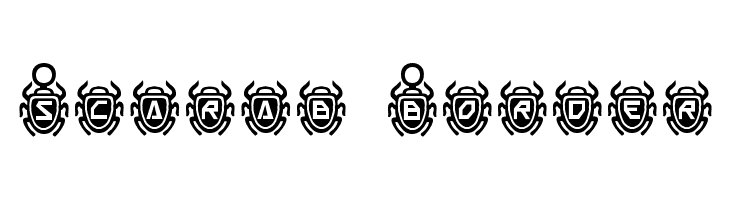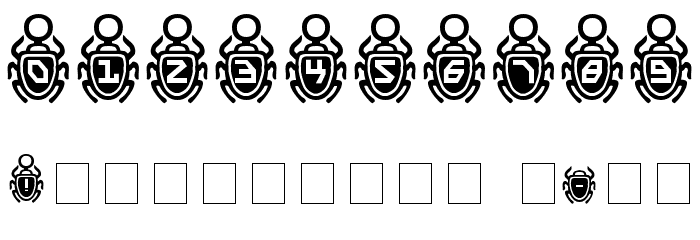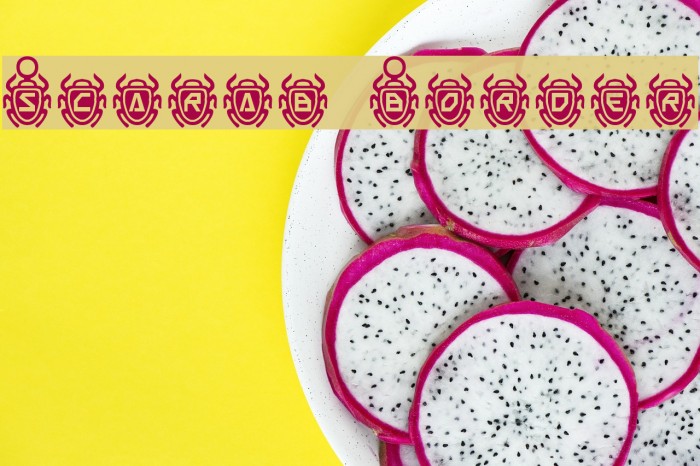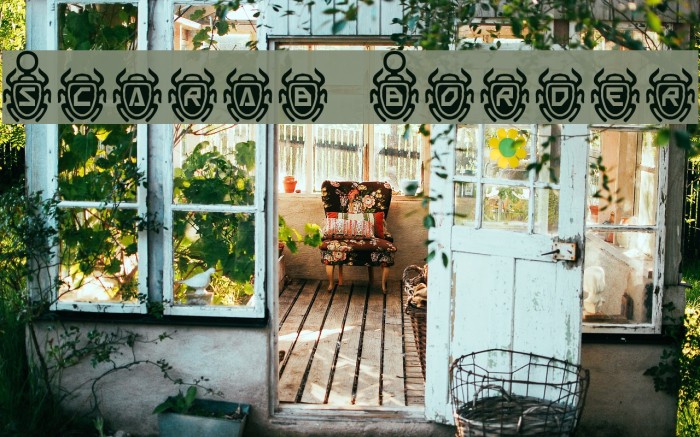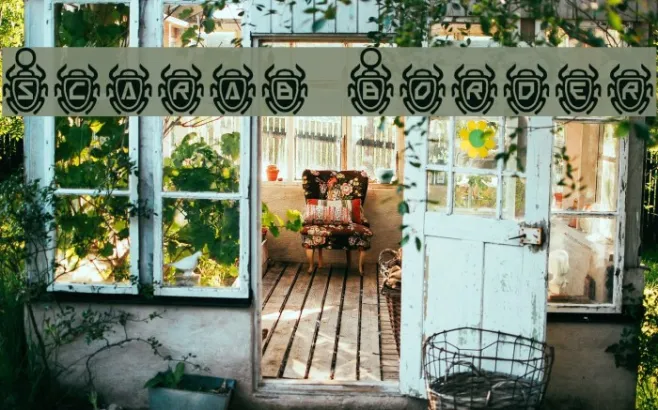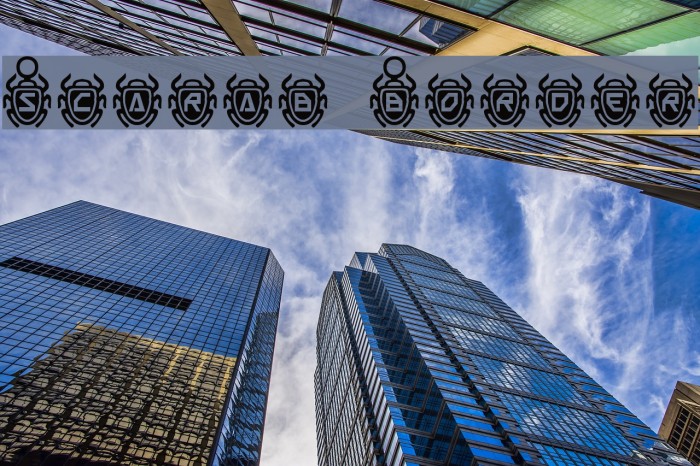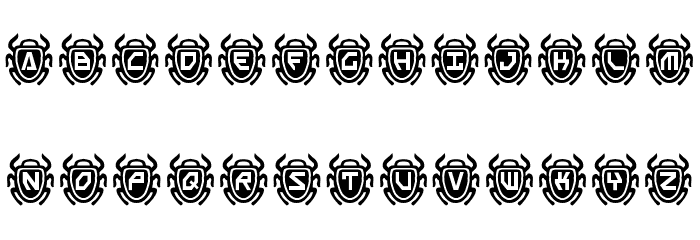
Scarab Border Font
Scarab Border Description
This font is a unique decorative style where each character is embedded within a stylized scarab beetle design. The letters and numbers are bold and centered within the beetle's body, creating a striking visual effect. The beetle motif adds an ancient, mystical quality, reminiscent of Egyptian art and symbolism. Each character maintains a consistent size and shape, ensuring uniformity across the set. The design is highly decorative, making it suitable for projects that require a strong thematic element.
| Use Case | Logos, Posters, Themed Events |
| Proposed Projects | Ideal for themed events, posters, or branding that requires an ancient or mystical aesthetic. |